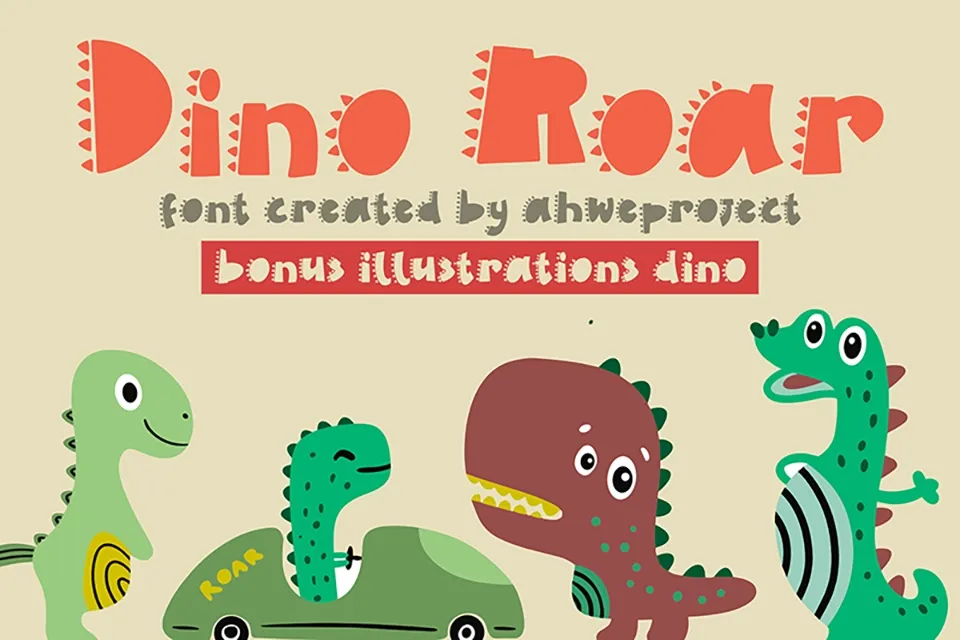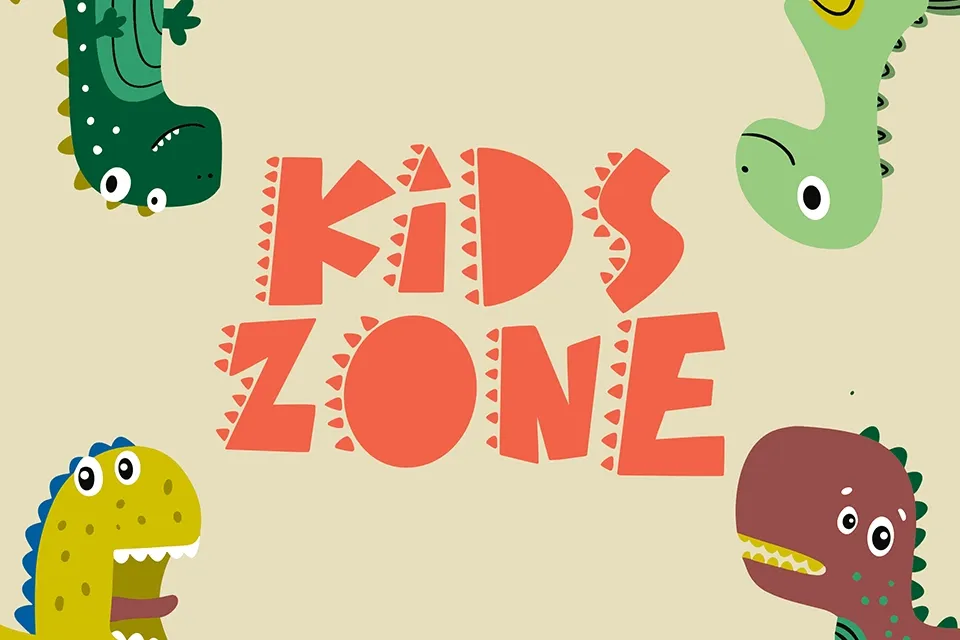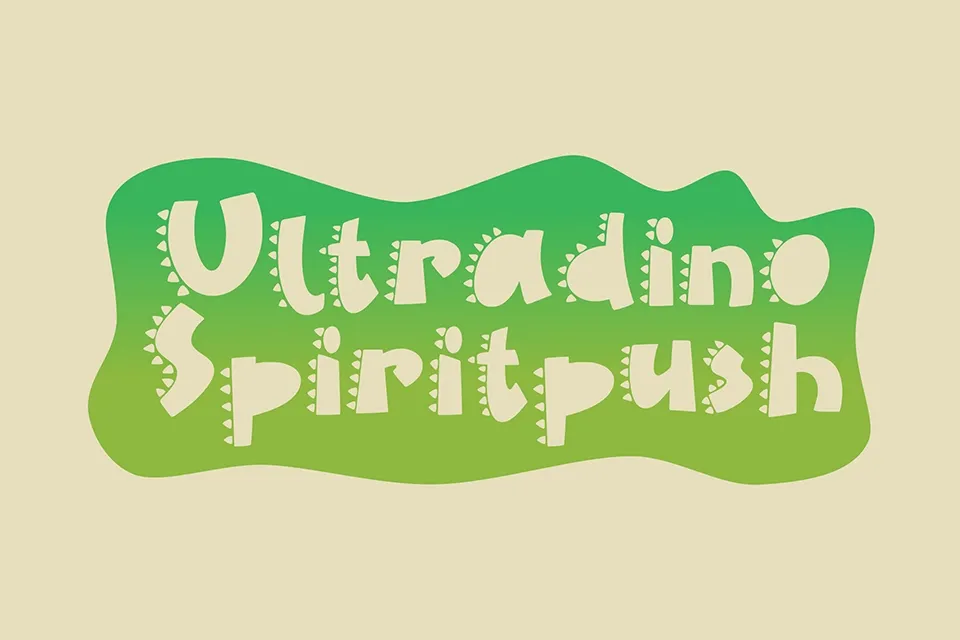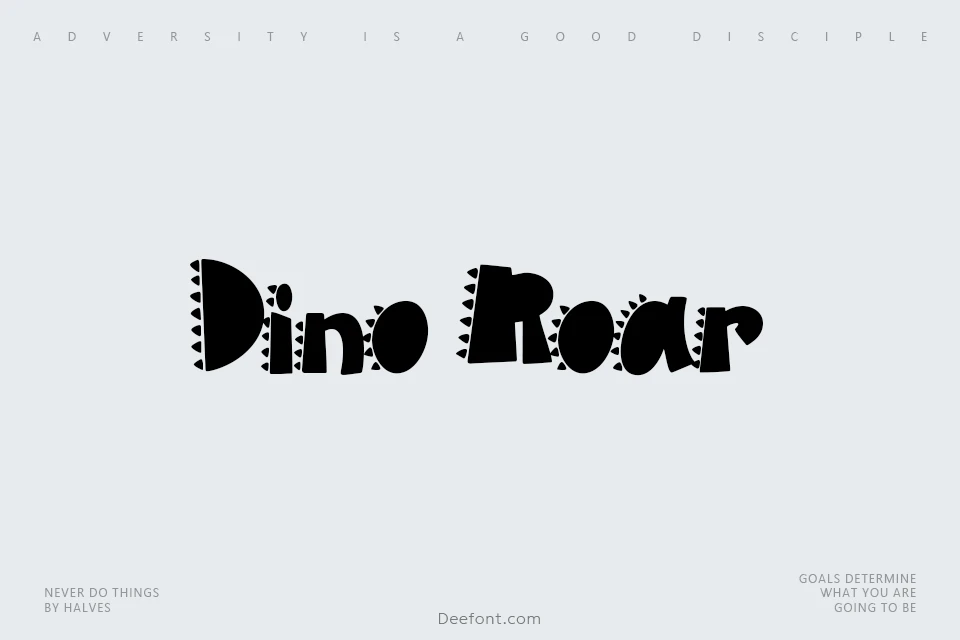
Dino Roar Font
Dino Roar is a playful and eye-catching font perfect for adding a Jurassic touch to your designs. Created by ahweproject, this font features fun, blocky letters that evoke a sense of adventure and excitement. Ideal for children’s books, posters, and birthday invitations, Dino Roar is designed to capture the imagination. With its unique character and bold presence, this font ensures your message stands out, bringing a roaring good time to any project it graces.